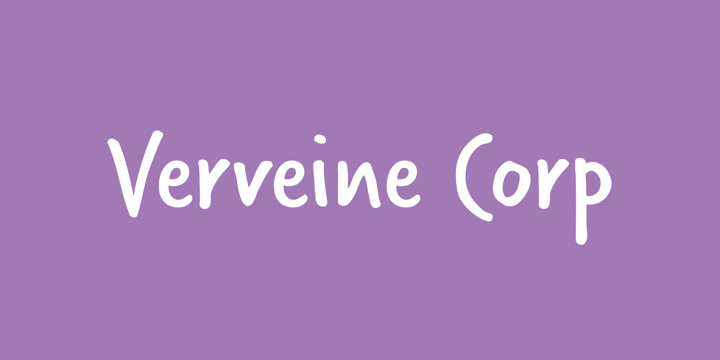
There is something delightfully brisk about Verveine. It has a familiar energy, like that of a shopping list quickly jotted down, but despite this vitality, the design of Verveine is considered and meets rigorous standards. Verveine is intended to be used at larger sizes – as a title in a book, or in packaging. It is most effective in short bursts – a few words, a tag line – to allow Verveine to support the message with its own expression. More…
Subtle stroke modulation and rounded terminals hint at writing with a felt pen; the strong weight suggests a fair amount of pressure applied, again indicating a brisk writing style. This is further emphasized by the condensed appearance and slight backwards slant, but to ensure that the agility does not descend into chaos, the design of every character has been tightly and meticulously controlled.
Verveine contains alternate designs for many characters, accessible via OpenType features in compatible applications, and the Corporate Edition includes Greek and Cyrillic to facilitate international use. A Standard Edition is also available.